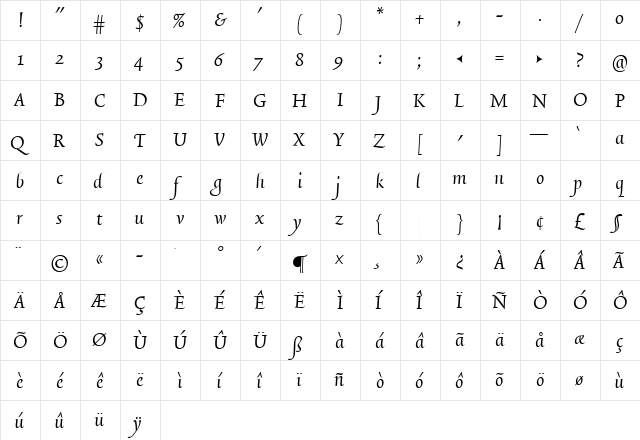
TriniteNo4 Italic
Design Context for TriniteNo4 Typeface
TriniteNo4 offers clean, dependable letterforms without strong stylistic allegiance, making it a practical choice for designers who need flexibility. The dynamic lean of this cut emphasises speed and emphasis in any layout.